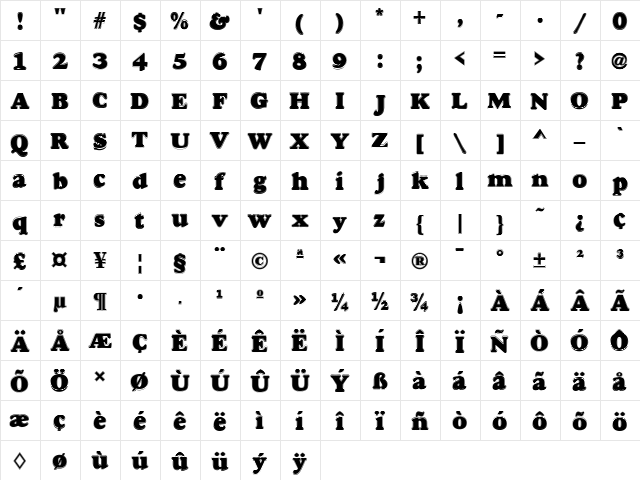
Dover Contour Regular
Design Context for Dover Contour Typeface
Dover Contour offers clean, dependable letterforms without strong stylistic allegiance, making it a practical choice for designers who need flexibility.